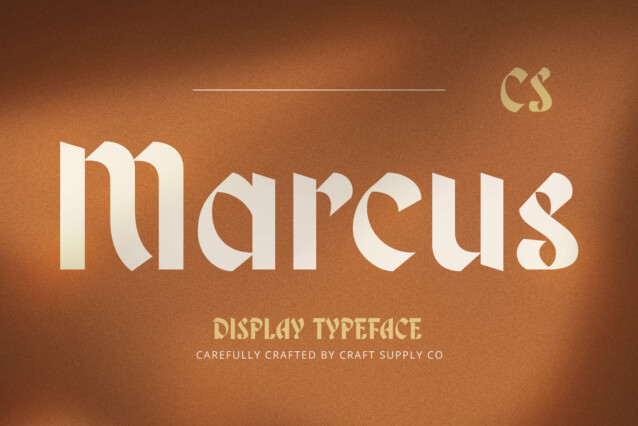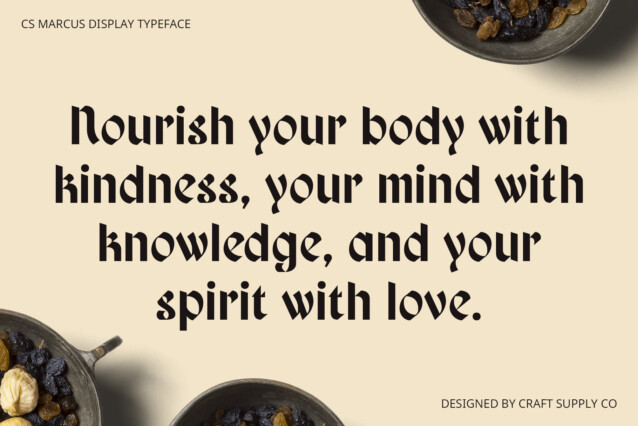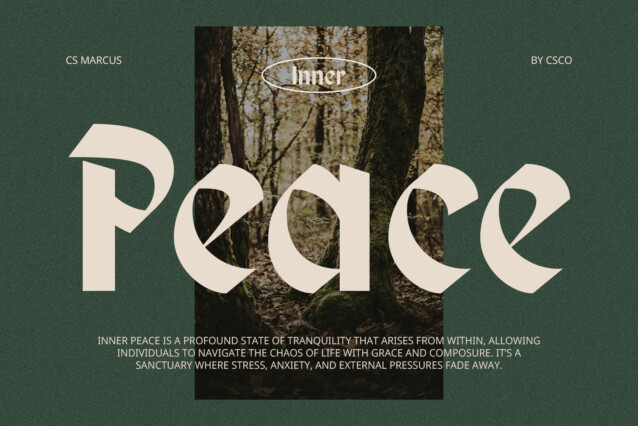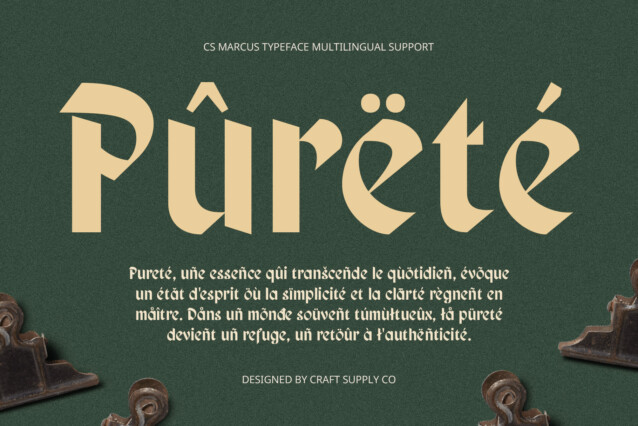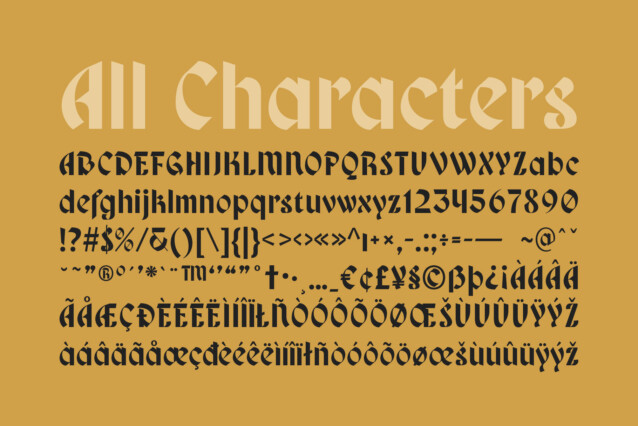
CS Marcus Font
CS Marcus Font is a bold blackletter display font that draws inspiration from medieval calligraphy, bringing a sense of history and authority to any design. Its sharp, angular letterforms and rigid vertical lines are reminiscent of ancient manuscripts, while its intricate ornamentation and bold structure create a distinctive and commanding presence. This font is ideal for designs that seek to evoke a sense of prestige, formality, or historical depth.